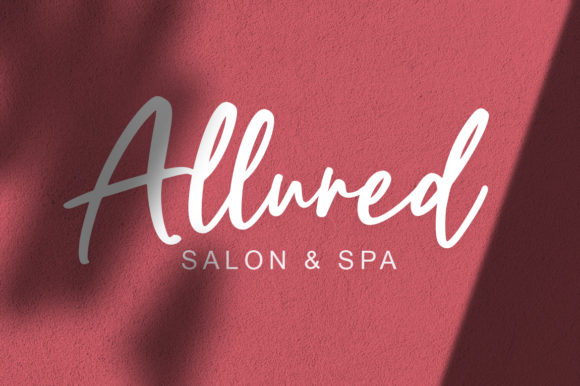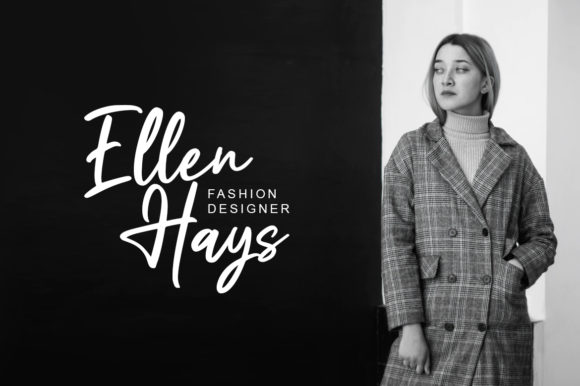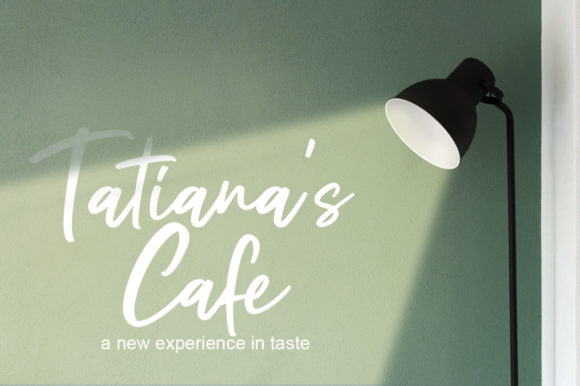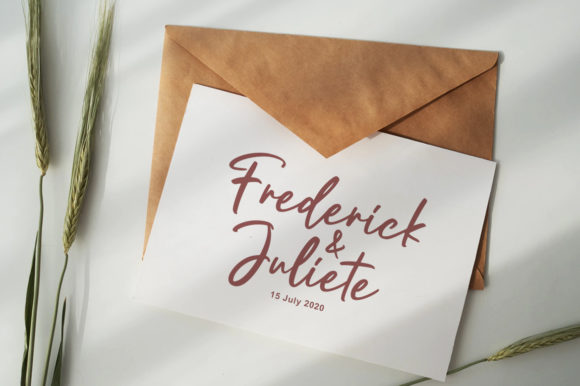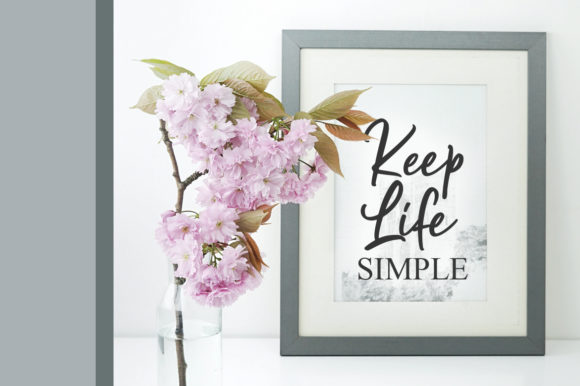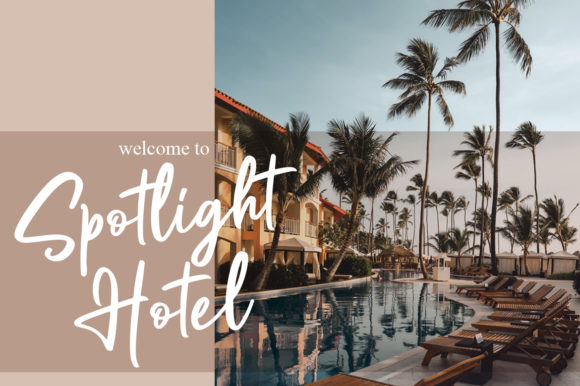
Introduction to Justtafe Font
Justtafe is inspired by classic typography and brings its own unique style to any design project.
This fantastic handwritten font is best suited for headlines of all sizes, as well as for blocks of text that have both maximum and minimum variations Whether itโs for web, print, moving images or anything else โ Justtafe will look spectacular.
Key Features of Justtafe Font
Why Choose Justtafe Font?
Justtafe Font offers exceptional quality and versatility, making it a valuable addition to your design toolkit. Whether you’re creating for personal projects or commercial use, Justtafe Font delivers professional results.